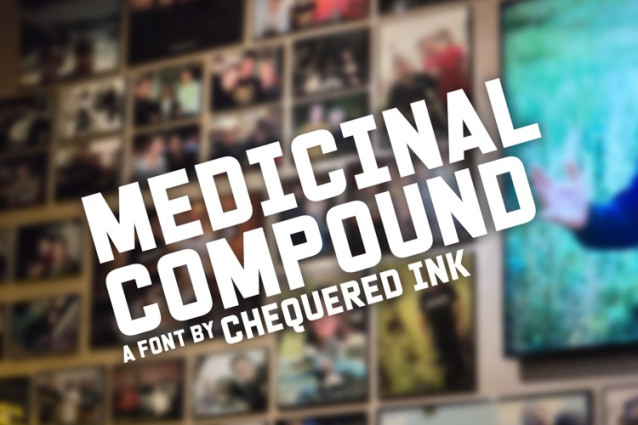
Medicinal Compound Font
Medicinal Compound Font is a simple and modern display font suitable for quotes, logos, headings, titles, and many more. Use it on any of your creative projects, and your designs will become outstanding!